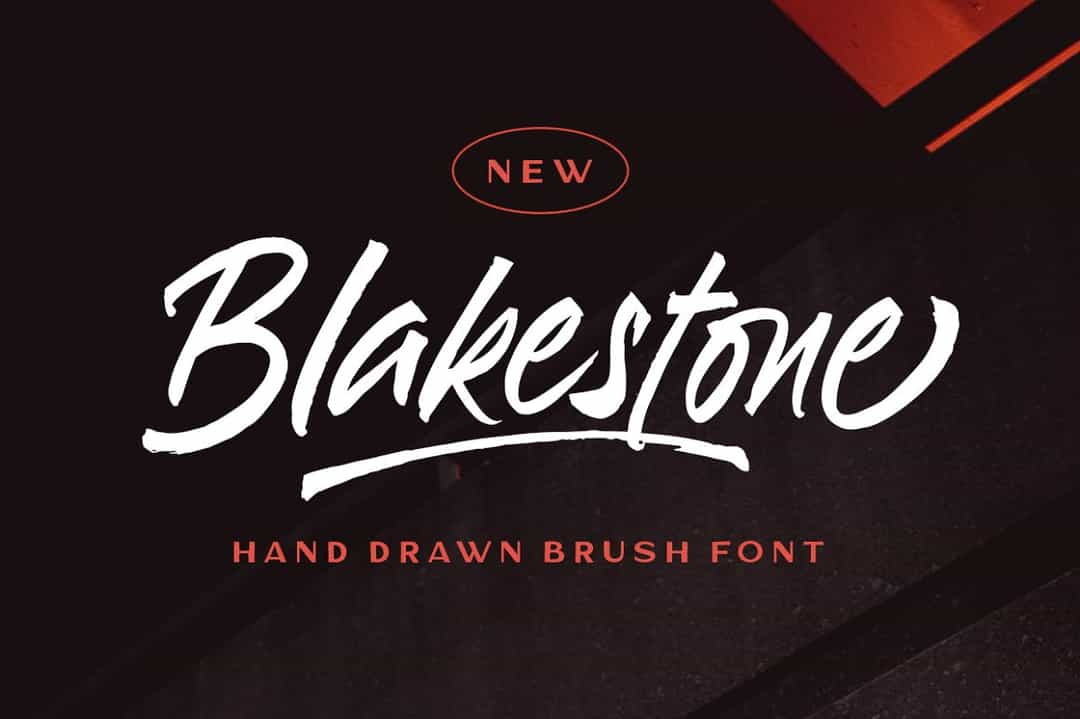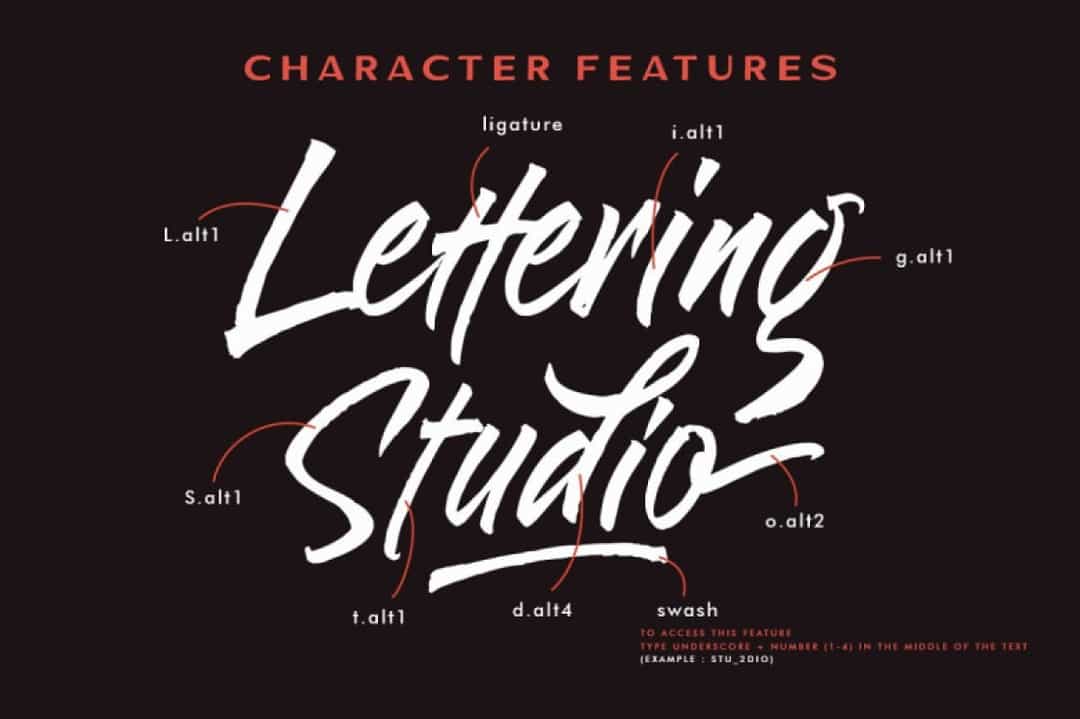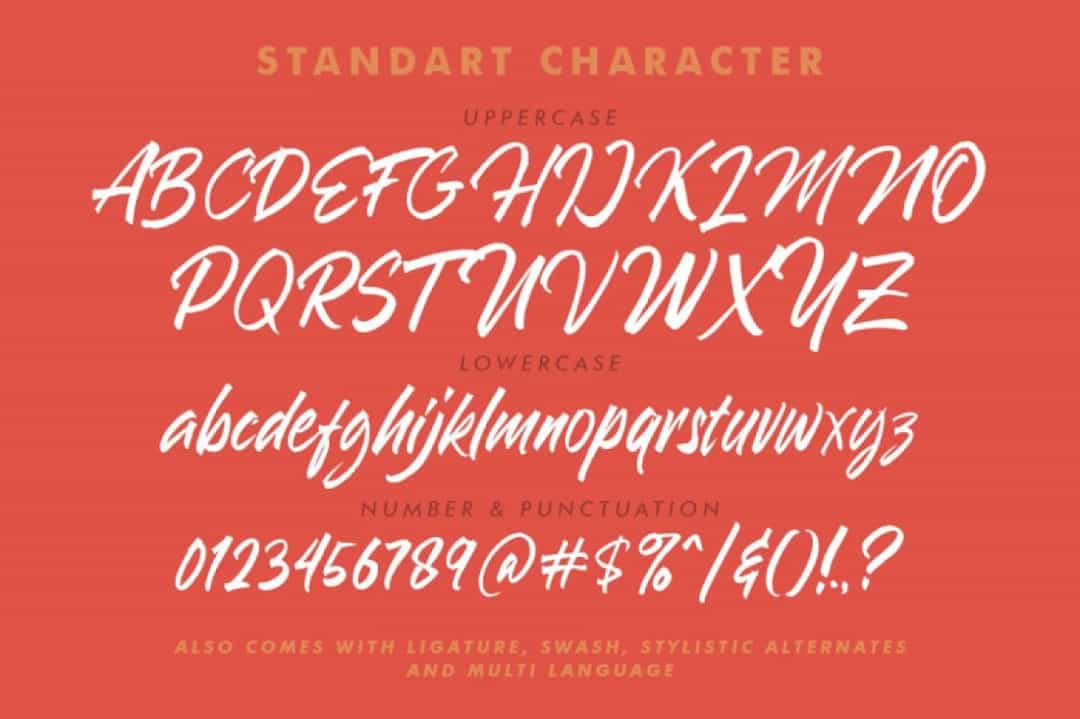
Blakestone Font is a hand-drawn brush script font designed specifically to be used for headlines, displays and logotypes as well as signatures. Additionally, this type of font may also be utilized in formal formats like labels, invitations and logos of labels magazines books greeting or wedding cards packaging fashion makeup novels stationery labels or for any form of advertisement.